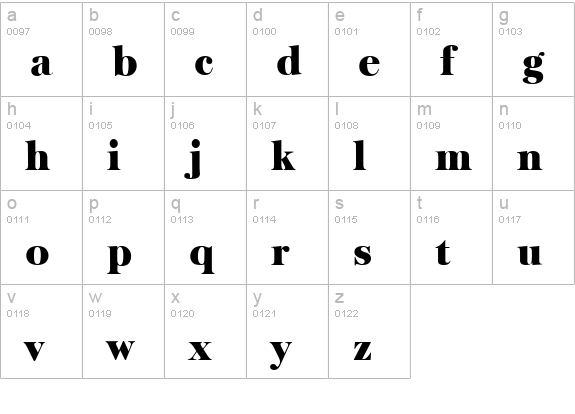
BaskervilleSerial-Black-Regular is a maximum-weight, dramatic variant in the BaskervilleSerial typeface family \xE2\x80\x94 well suited to maximum-impact headlines, posters, and packaging.
BaskervilleSerial-Black-Regular font is a classic and timeless typeface that exudes elegance and sophistication. Its bold and assertive strokes make a powerful statement, making it perfect for headlines, titles, and branding projects. The sharp serifs and clean lines give it a sense of refinement and professionalism. What makes BaskervilleSerial-Black-Regular font even more appealing is that it is available for free download at FontsMarket.com. This means you can easily access this premium font without any cost, allowing you to elevate your design projects without breaking the bank. Download BaskervilleSerial-Black-Regular font today and add a touch of sophistication to your designs.